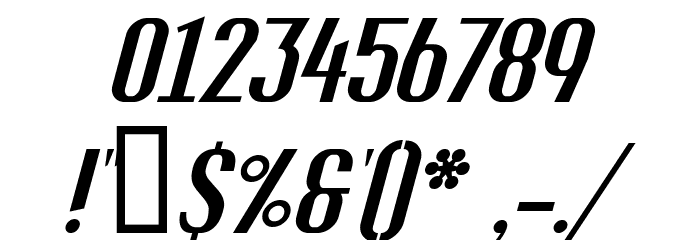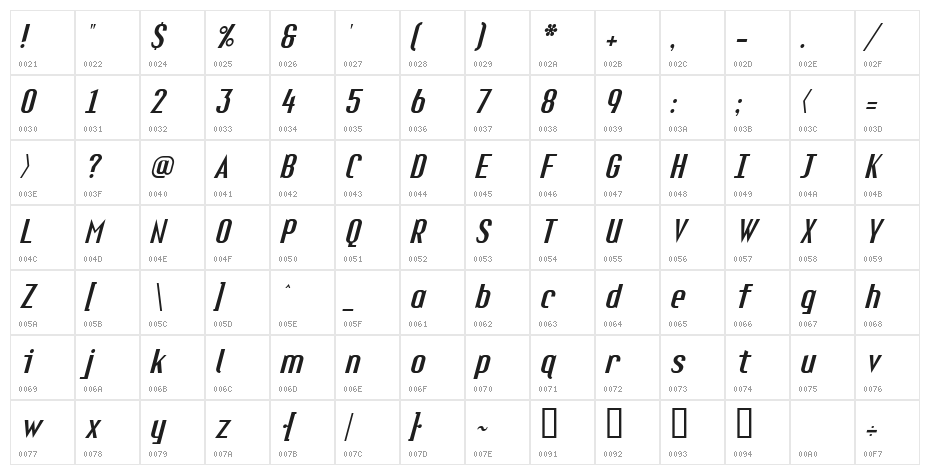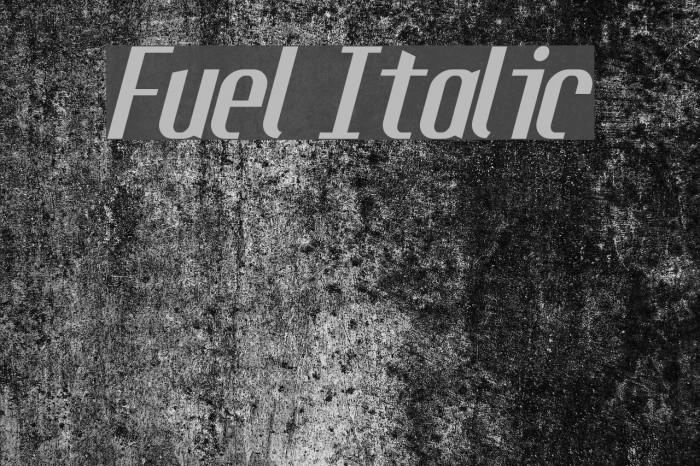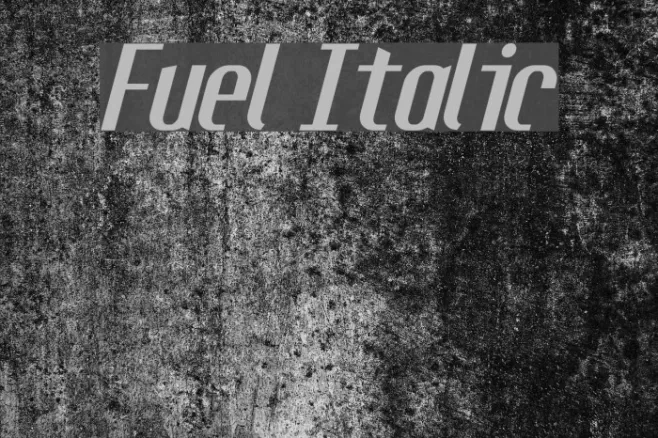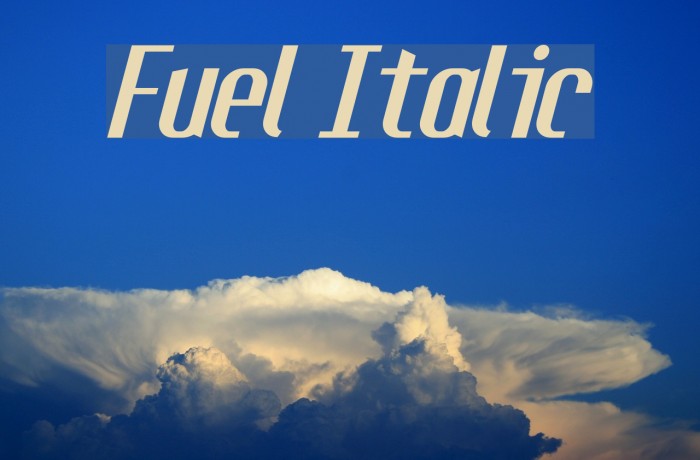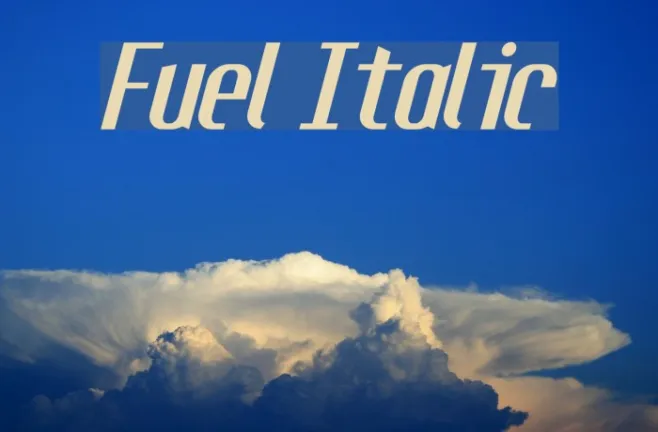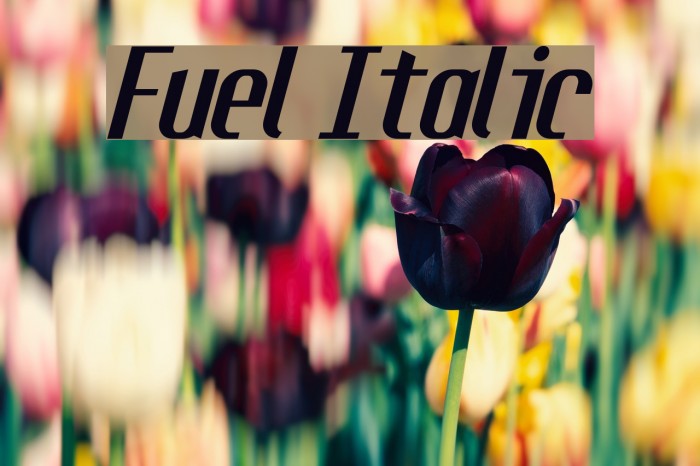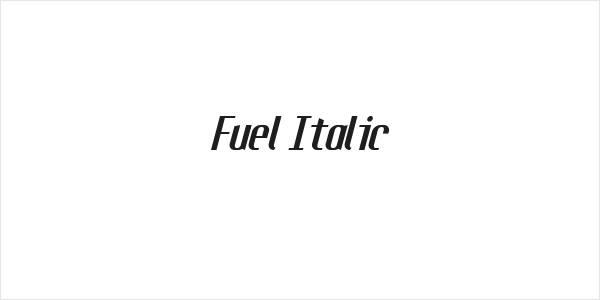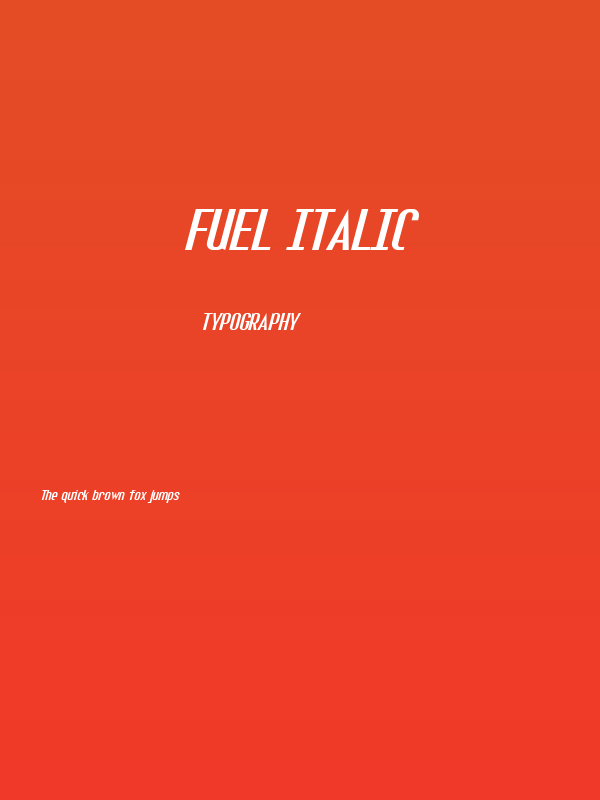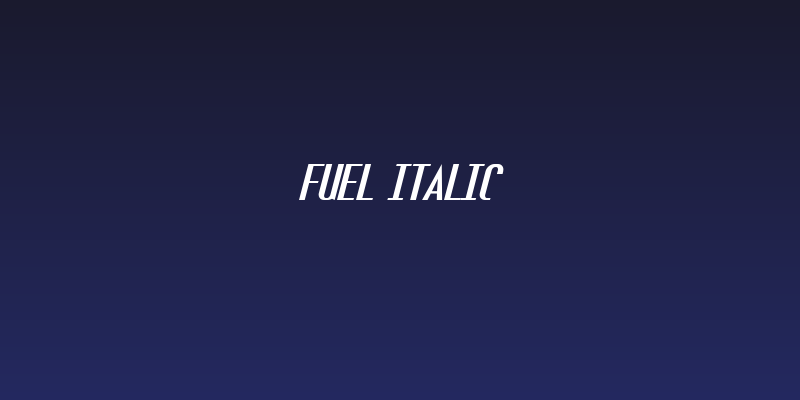
Fuel Italic Font
Fuel Italic Description
This font exhibits a dynamic and energetic style with its italicized and slightly condensed letterforms. The characters are sleek and modern, featuring sharp angles and a forward-leaning posture that conveys motion and speed. The uppercase and lowercase letters maintain a consistent slant, enhancing the font's cohesive appearance. The numerals are clear and legible, matching the overall aesthetic. Special characters are included, maintaining the same stylistic features. This font is ideal for projects that require a sense of urgency or modernity.
| Use Case | Headlines, Logos, Advertising |
| Proposed Projects | Ideal for branding, sports-related designs, automotive advertising, and dynamic headlines. |